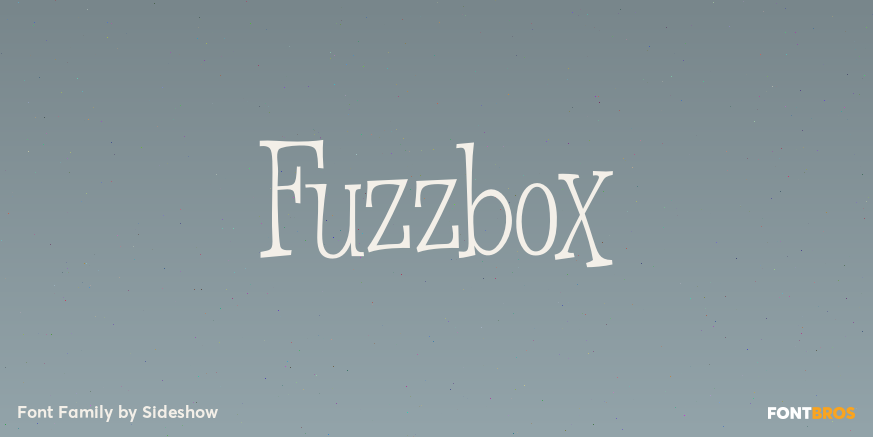
About Fuzzbox
How do Fender-flailing freaks make their feedback more ferocious? With Fuzzbox, of course! Forceful yet fluid, Fuzzbox is a fantastic find for fierce fingerboard finagling! Just plug it in and turn it up! Another fine product from Sideshow.